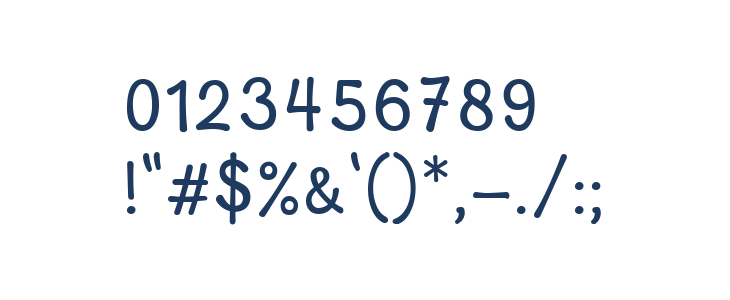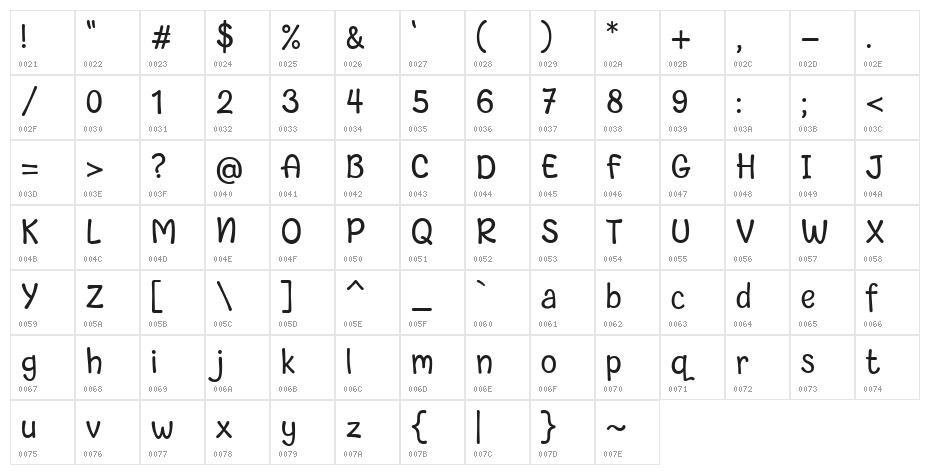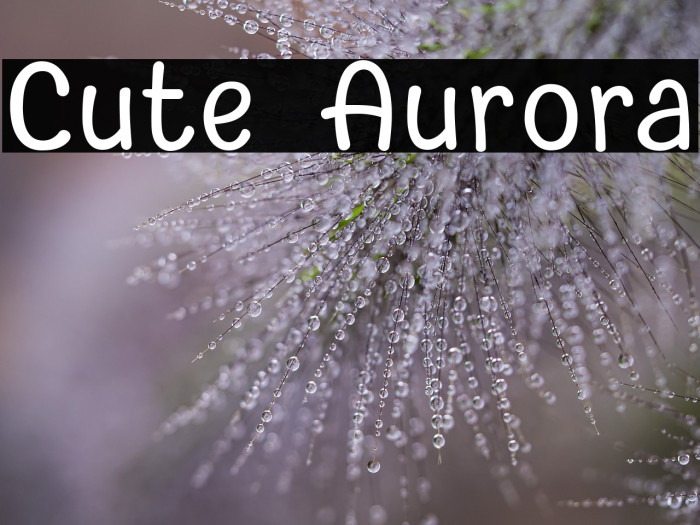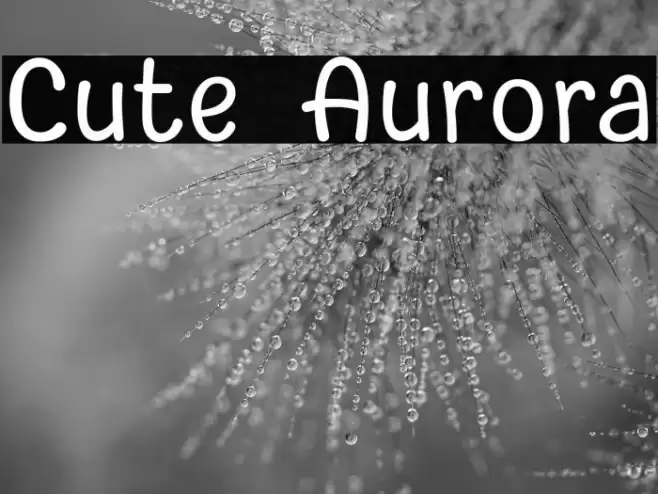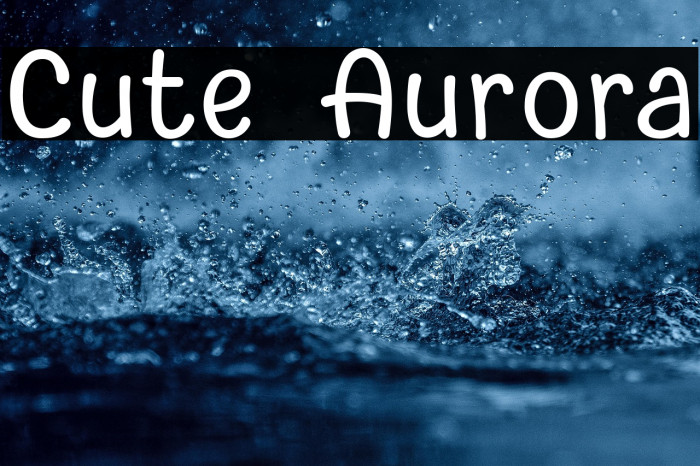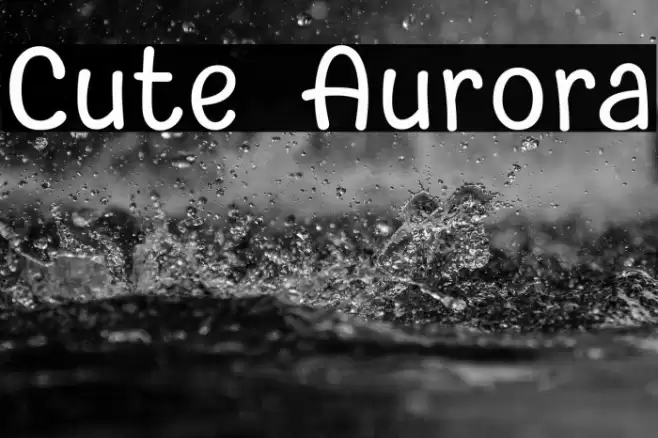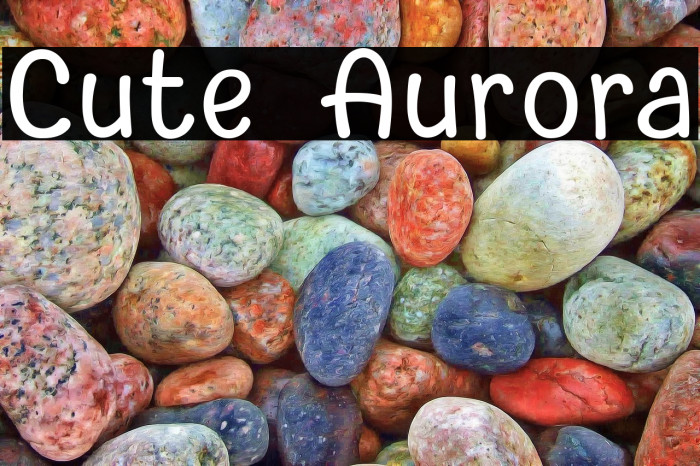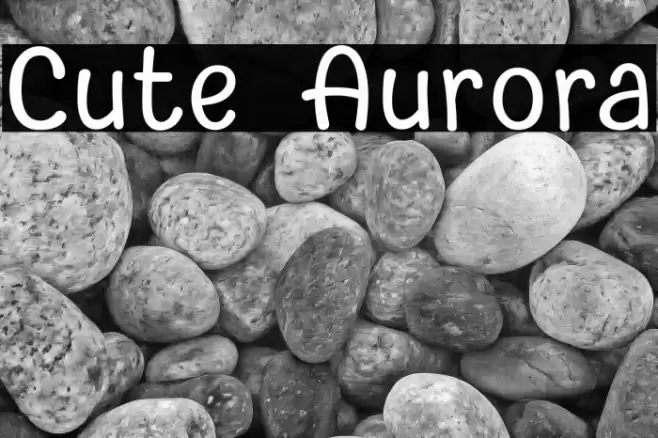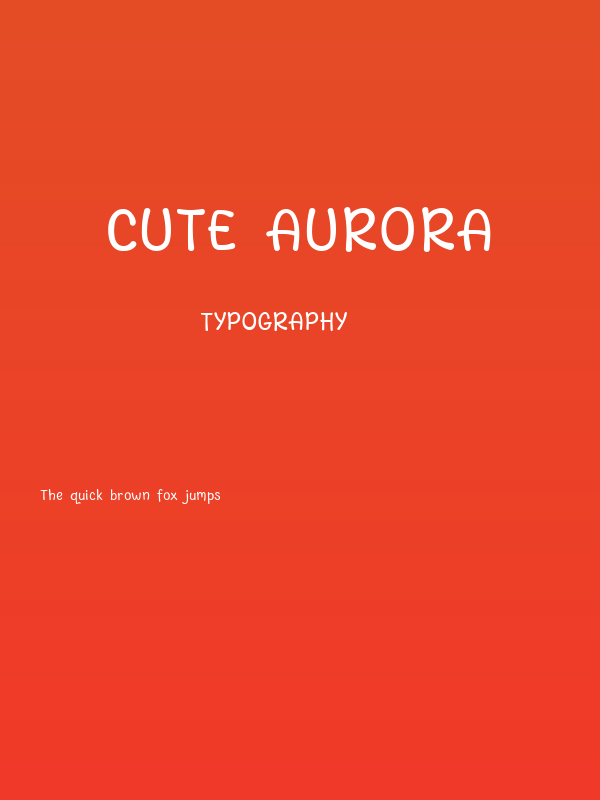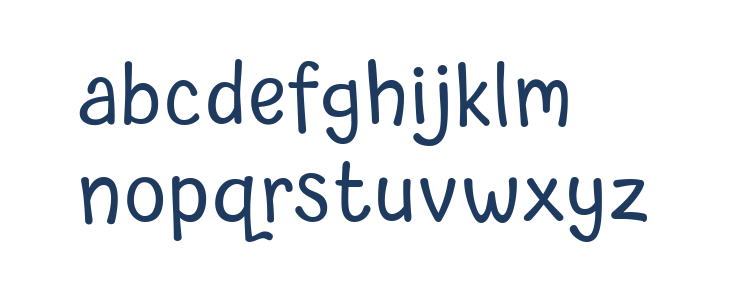
Cute Aurora Font
Cute Aurora Description
This font features a playful and whimsical style with rounded edges and a hand-drawn appearance. The characters are slightly irregular, giving it a casual and friendly feel. The uppercase and lowercase letters maintain a consistent flow, while the numbers and special characters complement the overall aesthetic. Its informal nature makes it suitable for projects that require a touch of fun and creativity. The font's design is approachable and versatile, making it an excellent choice for children's books, playful branding, or any project that aims to convey warmth and approachability.
Overall StylePlayful
Use CaseHeadlines, Logos, Informal text
Proposed ProjectsChildren's books, playful branding, greeting cards, casual invitations, and creative posters.